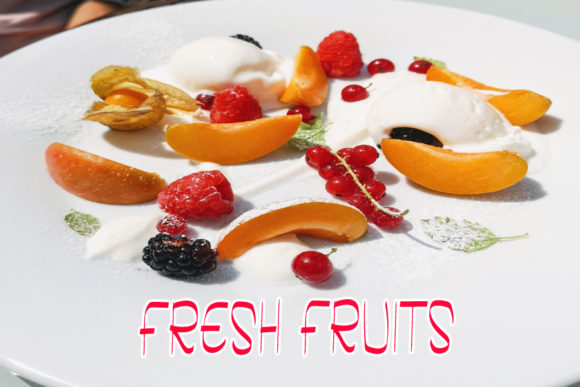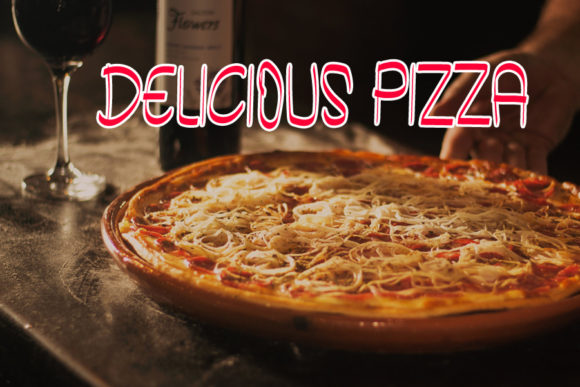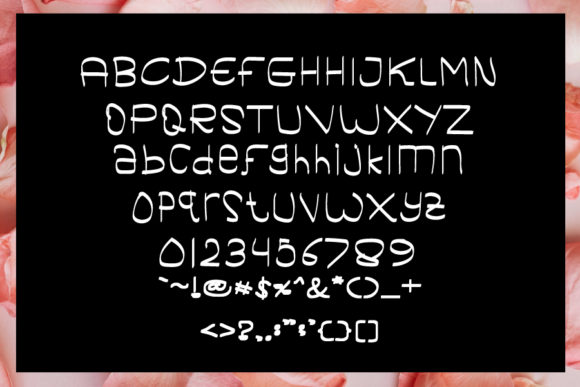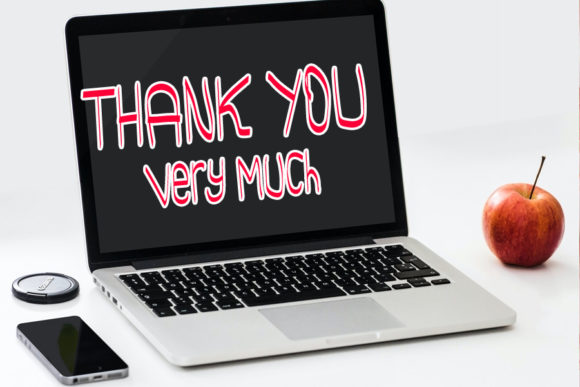
Papaya Font: Your Key to Unleashing Creativity
Have you ever stared at a blank canvas, waiting for inspiration to strike? It’s a moment we’ve all experienced at some point in our creative journeys. For designers, this moment can be especially daunting. But what if you had a secret weapon to elevate your designs and bring your ideas to life?
Enter the Papaya Font – a fun and quirky display font that’s sure to add a touch of whimsy to any project. With its unique character and versatility, Papaya Font is the perfect design resource for creatives looking to take their work to the next level. Whether you’re working on a free download or a high-quality design project, this font is sure to make a statement. And the best part? It’s available for free, making it an accessible addition to any designer’s toolkit.
Papaya Font
- High-Quality Design Resource: Papaya Font is a premium design resource ideal for creative projects requiring a unique touch.
- Unique Character Set: The font features a unique character set, including a wide range of glyphs and symbols, perfect for creative projects.
- Perfect for Digital and Print Projects: Papaya Font is suitable for both digital and print projects, making it an excellent addition to any designer’s toolkit.
Honest Review: Papaya Font
As a designer, I’m always on the lookout for unique and high-quality design resources to elevate my creative projects. Recently, I stumbled upon the Papaya Font, and I must say, it’s a great addition to my design arsenal.
What works well: ✨ The Papaya Font has a beautiful, modern design that’s perfect for a variety of creative projects, from branding to digital art. It’s also available for free download, making it an excellent design resource for designers on a budget. Additionally, the font’s transparent background makes it easy to use in conjunction with other design elements.
Limitations: ⚠️ While the Papaya Font is a great option for many designers, it may not be suitable for projects that require a high level of sophistication or complexity. The font’s design, while modern, may not be as detailed or nuanced as some other options.
Overall impression: I’m impressed with the Papaya Font’s design and versatility. It’s a great option for designers who want a high-quality, free design resource for their creative projects.
- Modern design
Tips for Getting the Most Out of Papaya Font
To get the most out of the Papaya Font, use it in combination with other design resources, such as high-quality images and graphics. This will help create a cohesive and visually appealing design. Additionally, experiment with different font sizes and styles to find the perfect look for your creative project.
The Papaya Font is a versatile design resource that can be used in a variety of creative projects, including:
- Social media graphics and ads